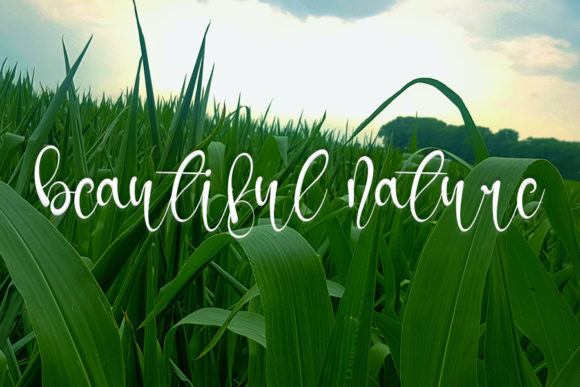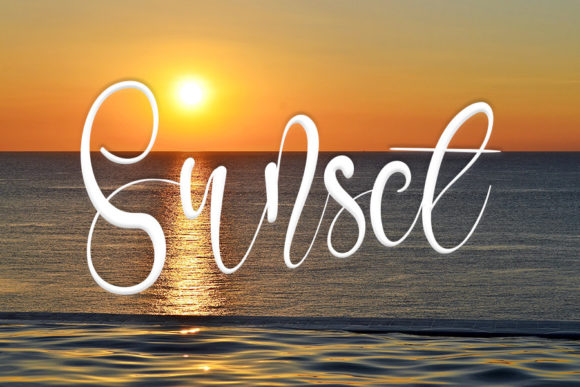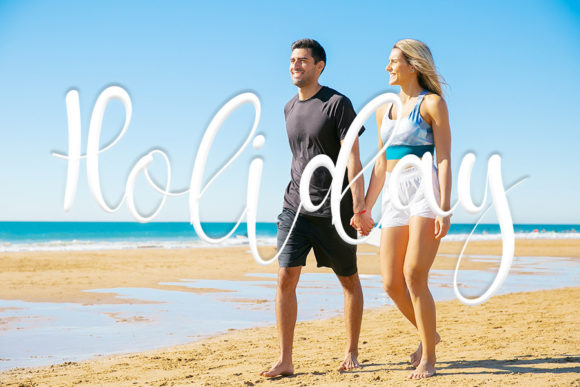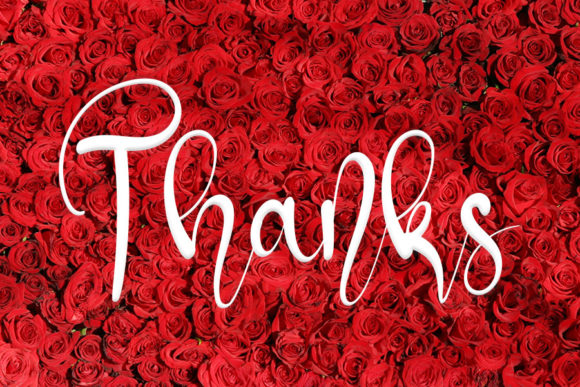
Washington Font
About Washington Font
Washington is a friendly and tall handwritten font, carefully designed to become a true favorite. It maintains its classy calligraphic influences while feeling contemporary and fresh.